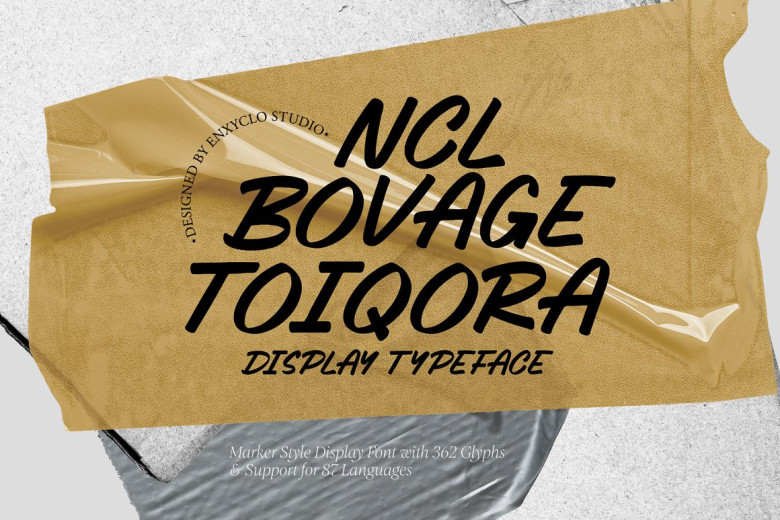
NCL Bovage Toiqora Font
NCL BOVAGE TOIQORA is an extraordinary marker-style show font. Carefully crafted to be loved, this one will take all your imaginative concepts to new heights! Made for large point sizes yet still elegant at smaller points.
Perfect for weddings, headlines magazine articles billboard titles websites posters branding logos branding. Whatever project it may be used on; with such an iconic font at your side you are sure to make your work shine above others!